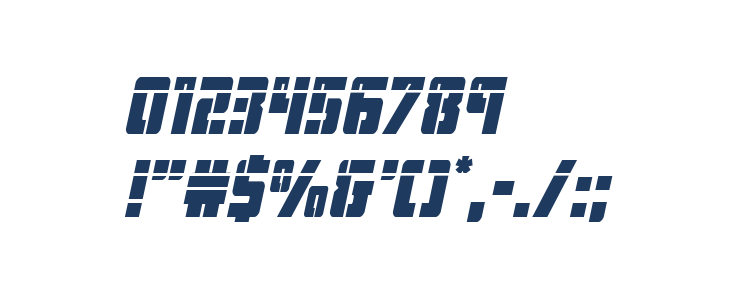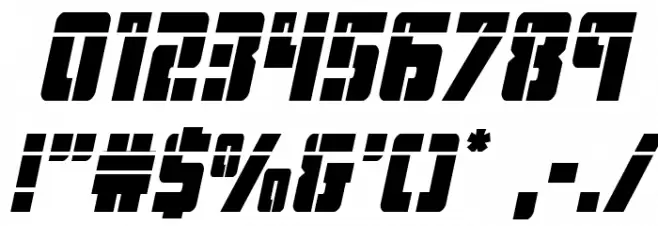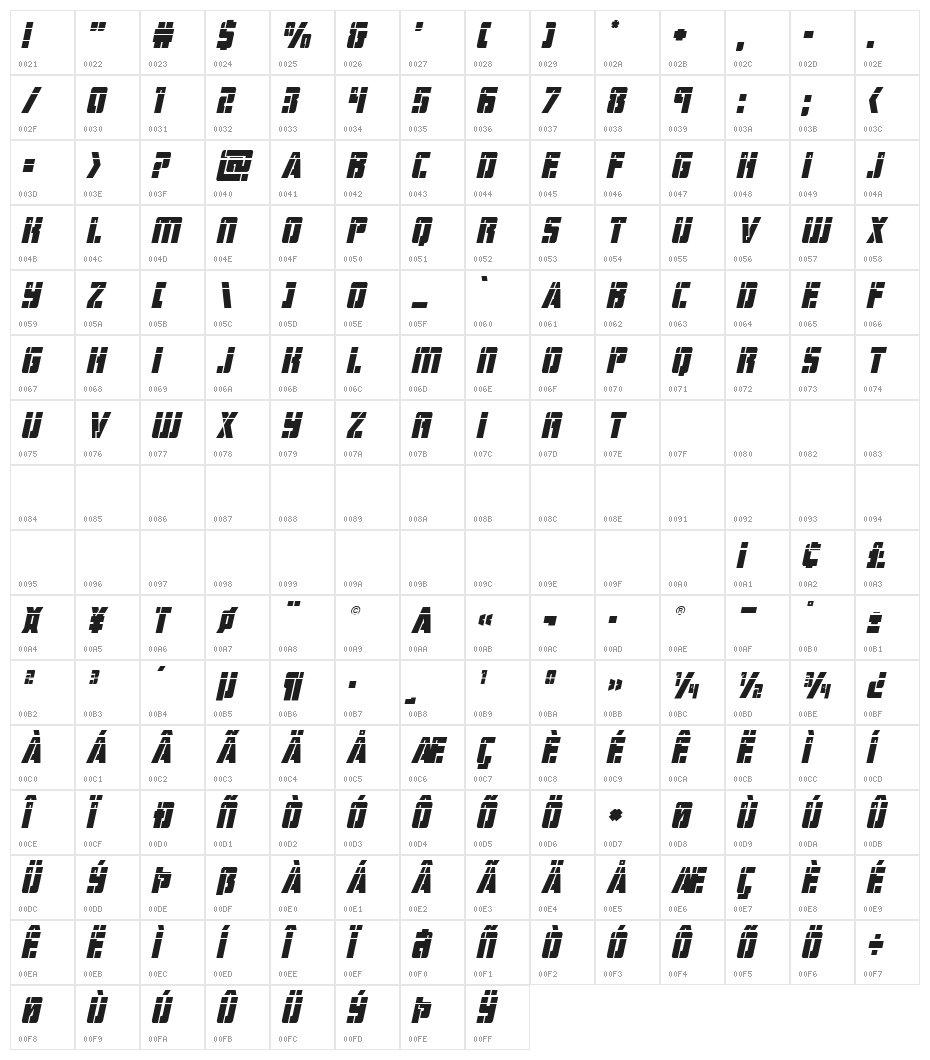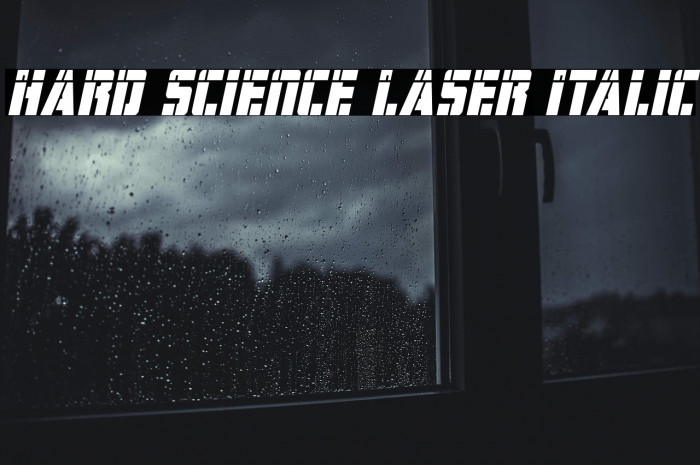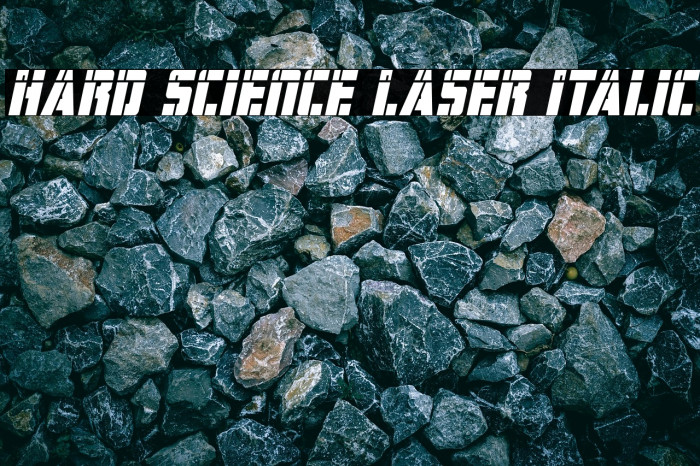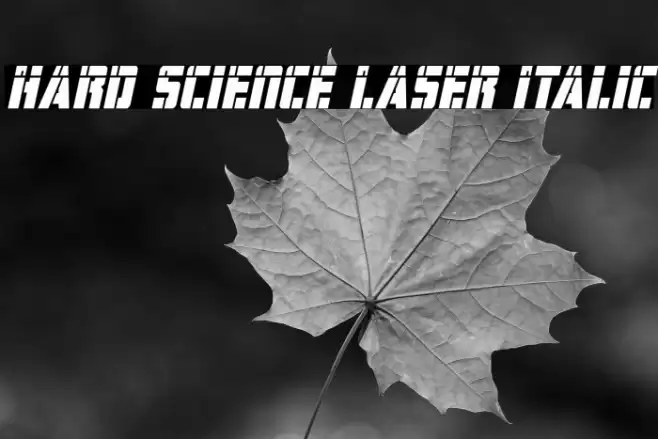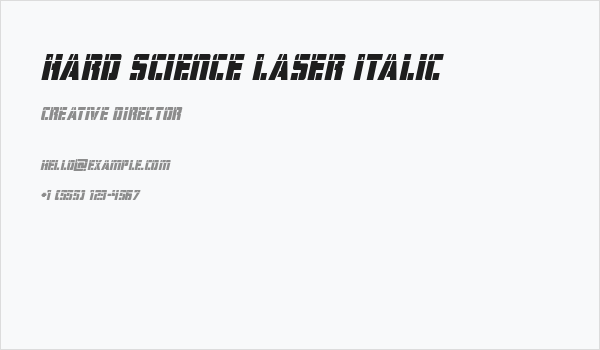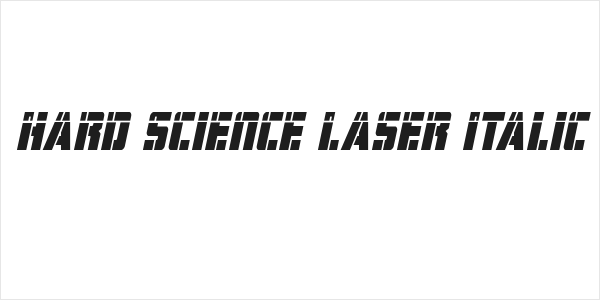
Hard Science Laser Italic Font
Hard Science Laser Italic Description
This font features a bold and dynamic design with a futuristic and angular aesthetic. The characters are italicized, giving a sense of motion and speed. The strokes are thick and consistent, creating a strong visual impact. The design incorporates sharp edges and geometric shapes, making it suitable for modern and tech-oriented themes. The uppercase and lowercase letters maintain a uniform style, while the numerals and special characters complement the overall look with similar angularity.